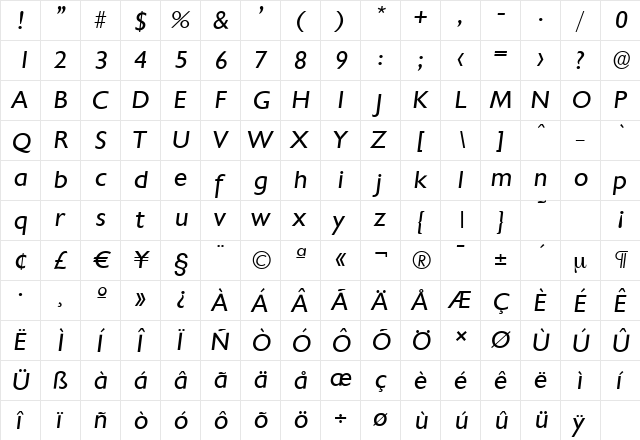
ChantillySerial Italic
Foundry SoftMaker Software GmbH
StyleItalic
FoundrySoftMaker Software GmbH
DesignerSoftMaker Software GmbH
Design Context for ChantillySerial Typeface
ChantillySerial is a composed and adaptable typeface that performs quietly and consistently across a wide range of design contexts. The slanted form adds forward momentum and visual energy.